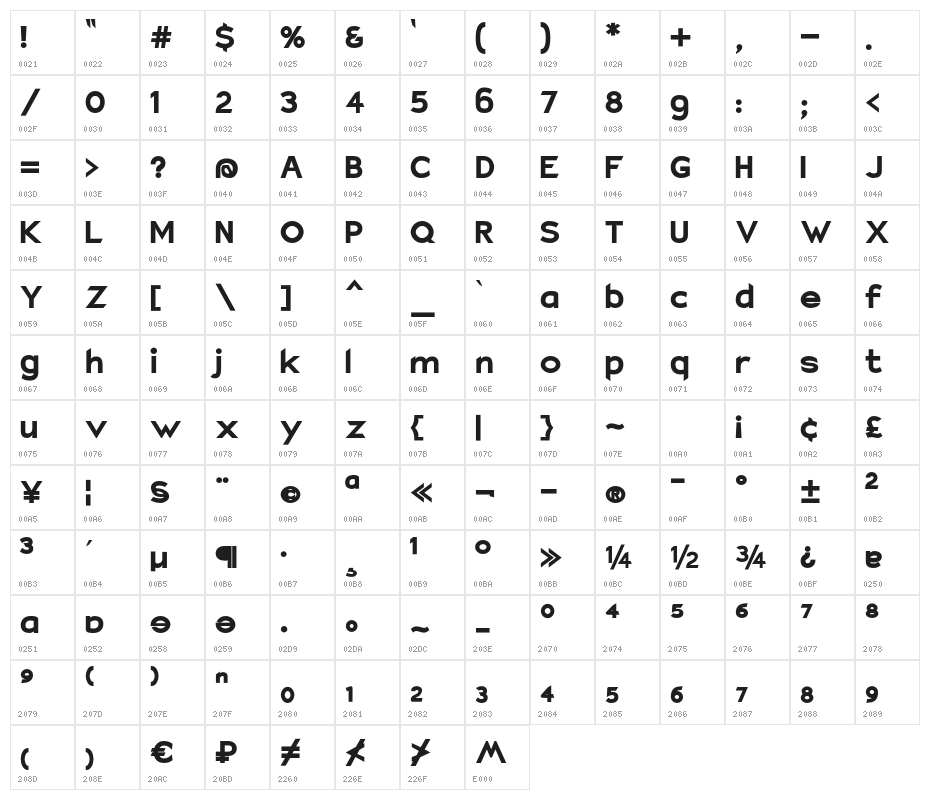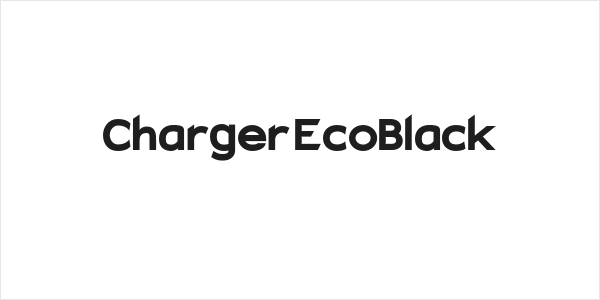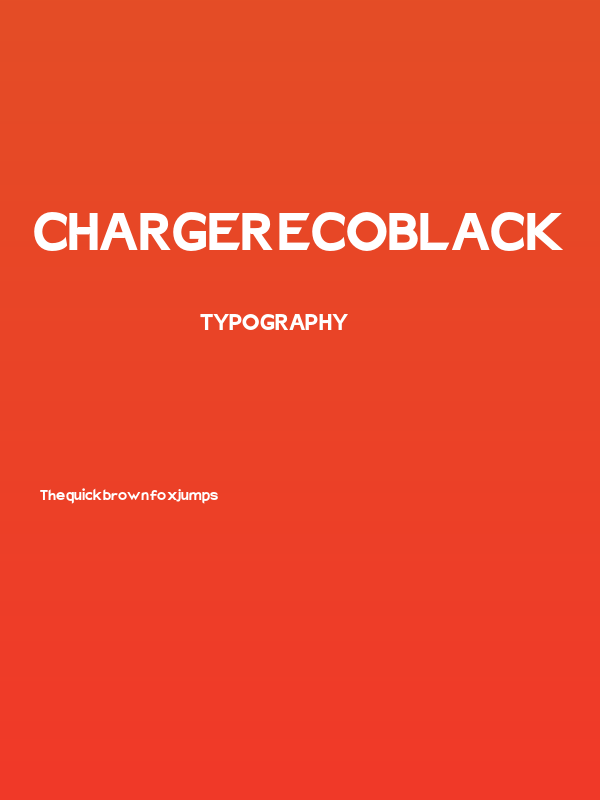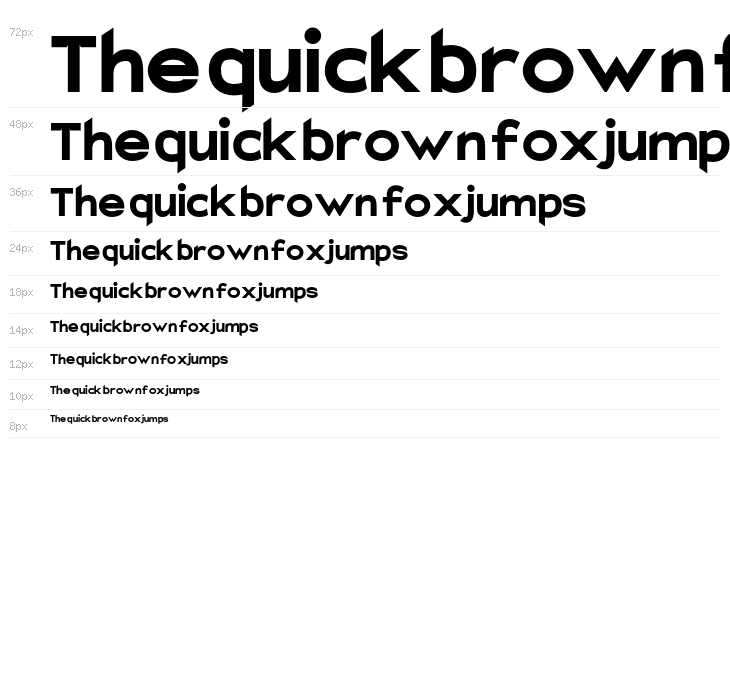
Charger EcoBlack Font
Charger EcoBlack Description
This font features a bold and modern sans-serif design with clean lines and a geometric structure. The uppercase letters are uniform in height, providing a strong and cohesive appearance. The lowercase letters maintain a similar geometric style, with rounded edges that add a touch of softness to the overall look. The numerals are consistent with the letterforms, offering a balanced and harmonious feel. Special characters are well-integrated, maintaining the font's modern aesthetic. This typeface is versatile, suitable for various design applications where a contemporary and bold statement is desired.
| Proposed Projects | Ideal for branding, advertising, headlines, and digital media where a strong, modern look is needed. |